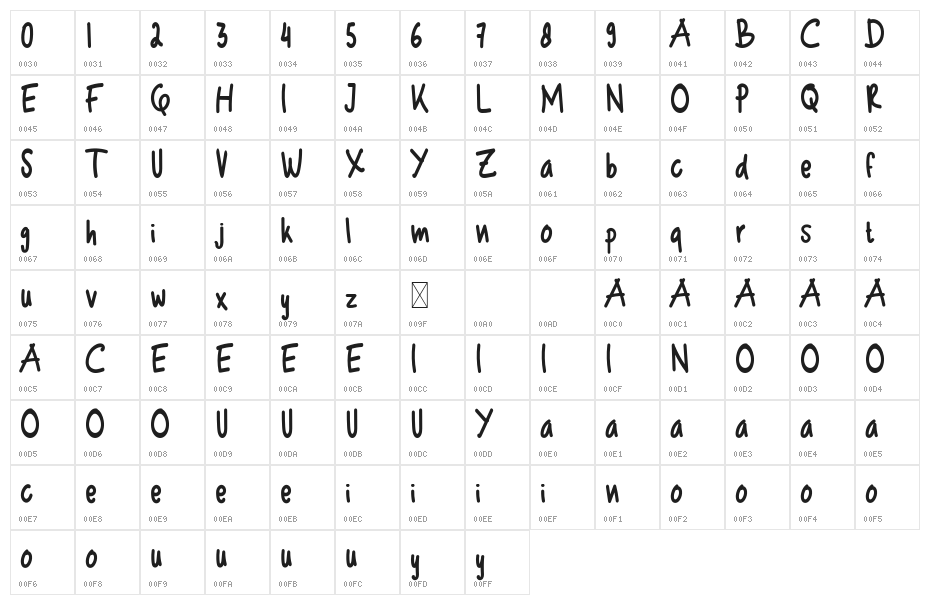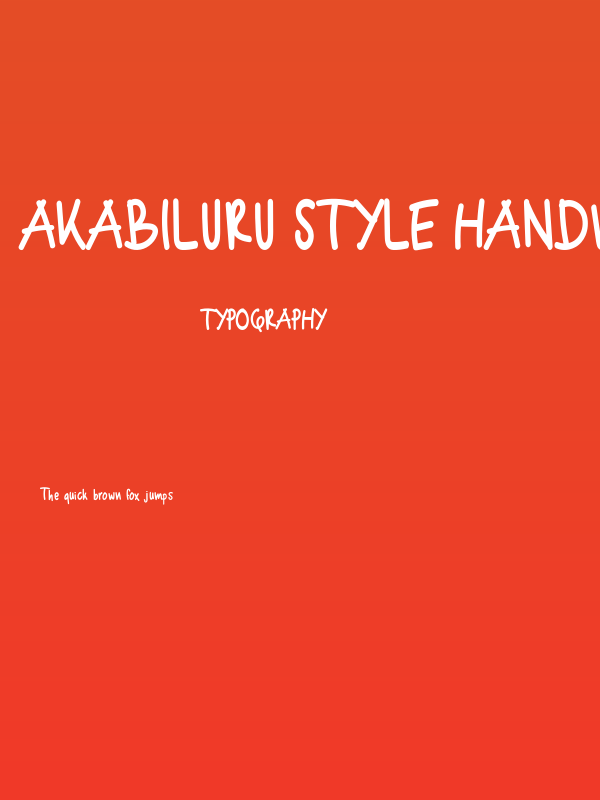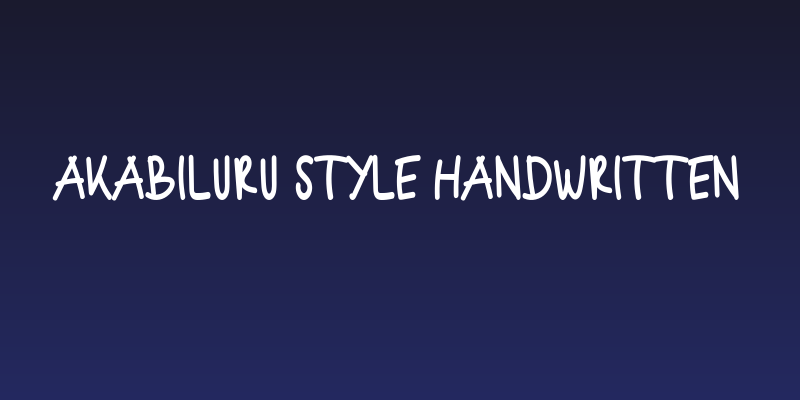
Akabiluru Style Handwritten Font
Akabiluru Style Handwritten Description
This font exudes a playful and casual handwritten style, characterized by its bold and rounded letterforms. The uppercase letters are slightly larger and more pronounced, while the lowercase letters maintain a consistent flow, enhancing readability. The numbers are distinct and match the overall style, making them easily recognizable. The font's informal and friendly appearance makes it suitable for projects that require a personal touch. The character spacing is normal, ensuring clarity and legibility. This font is ideal for creative projects where a relaxed and approachable tone is desired.
Overall StyleCasual
Use CaseHeadlines, Logos, Informal Text
Proposed ProjectsGreat for greeting cards, children's books, casual branding, and social media graphics.